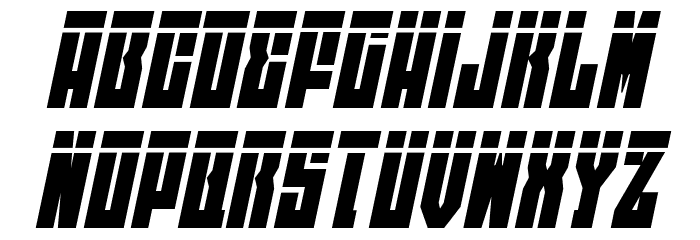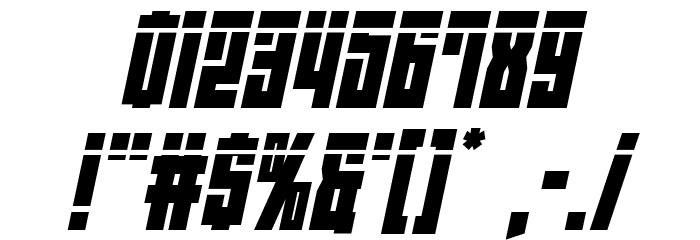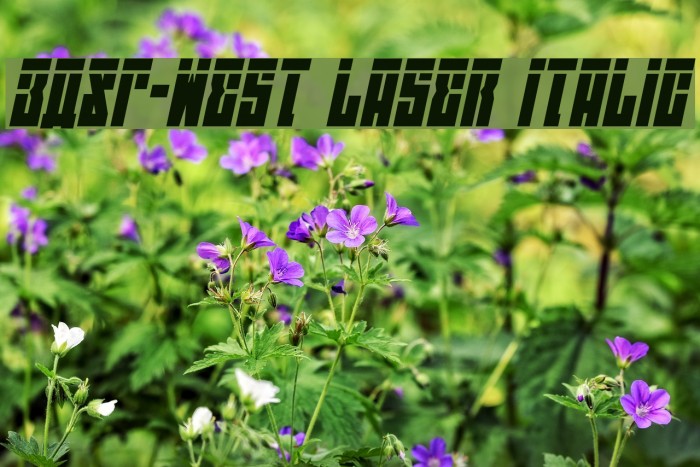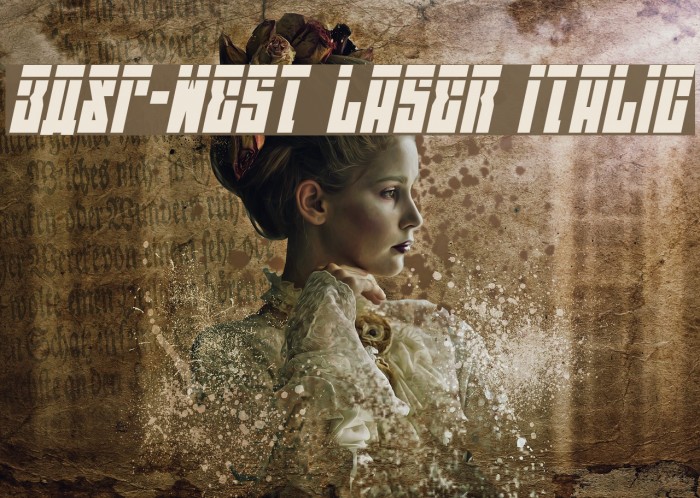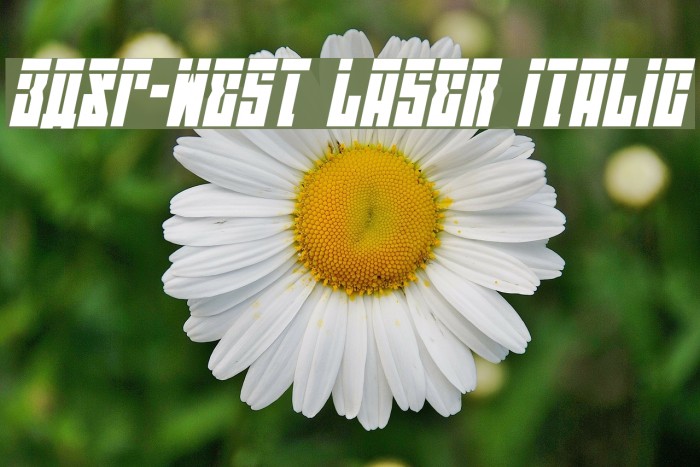
EAST-west Laser Italic Font
This font features a bold and dynamic design with a futuristic and angular aesthetic. The characters are sharply defined with a strong emphasis on geometric shapes, giving it a striking and modern appearance. The uppercase and lowercase letters maintain a consistent style, with a slight slant that adds a sense of motion and energy. The numbers and special characters are equally bold, ensuring uniformity across all glyphs. This font's unique style makes it ideal for projects that require a strong visual impact.
- Font: EAST-west Laser Italic
- Proposed Projects: Ideal for sci-fi themed designs, video game titles, posters, and branding that requires a modern and impactful look.
- Overall Style: Futuristic